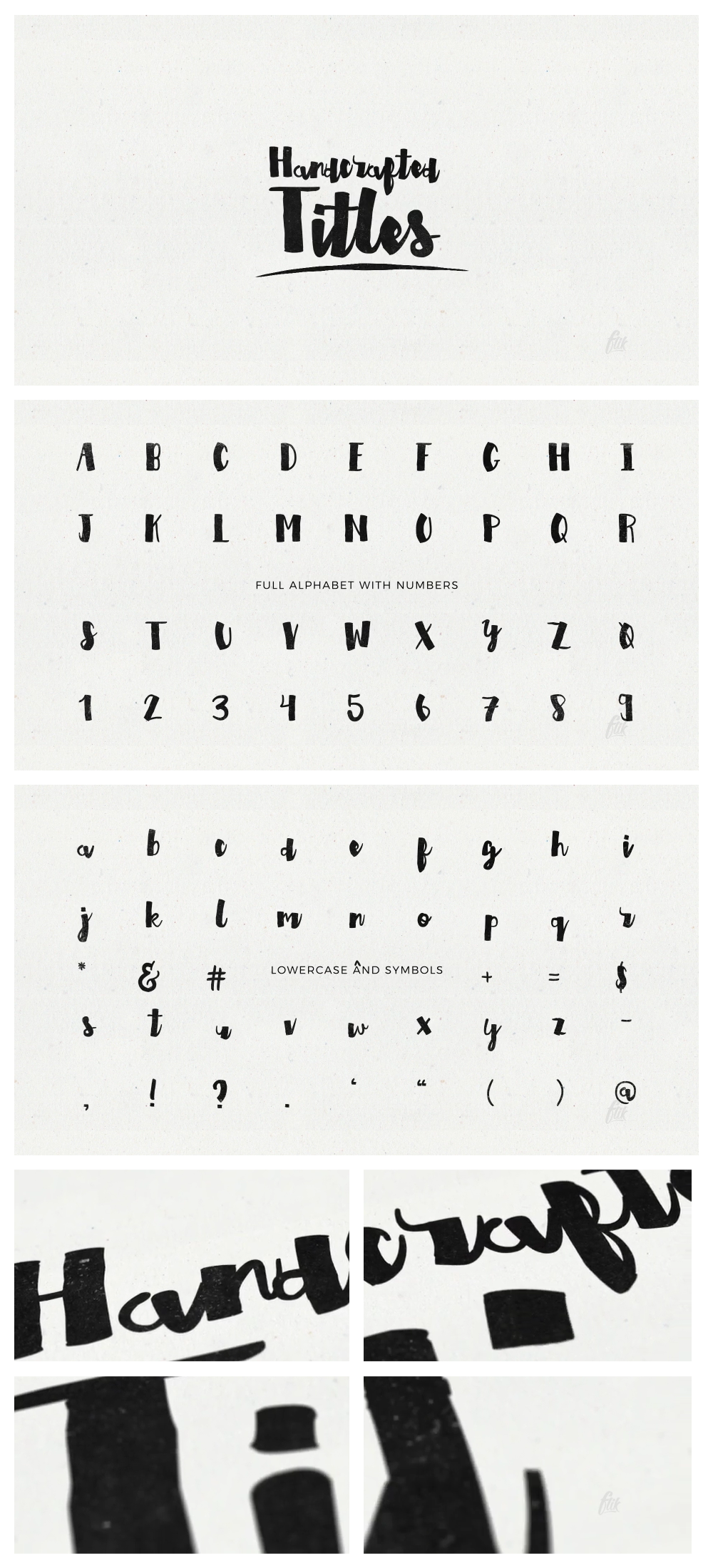
Hand Crafted - Animated Typeface
Animated Typeface
This handcrafted style animated typeface is great for making titles. It’s easy to use with a drag & drop style setup. It includes the full alphabet with uppercase, lowercase, numbers and symbols.